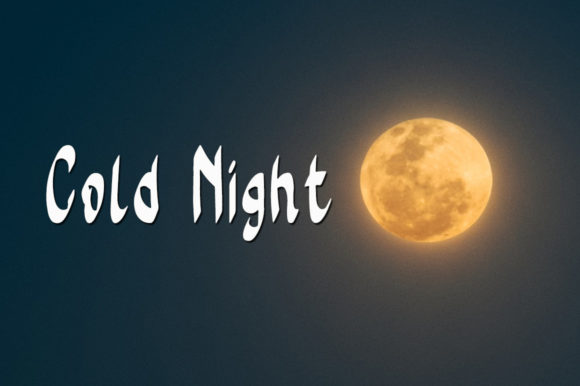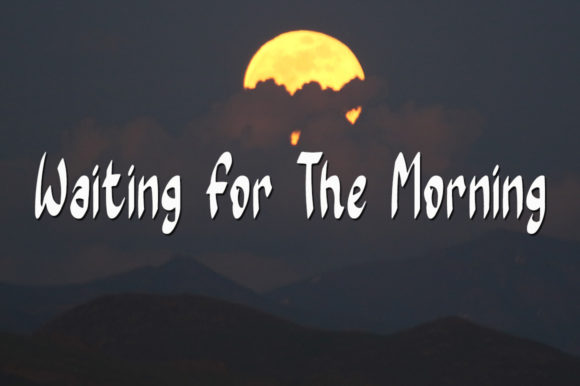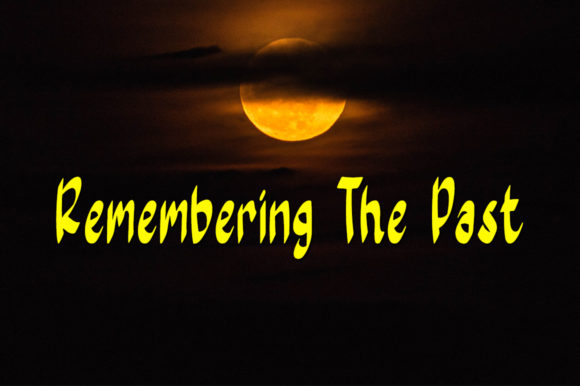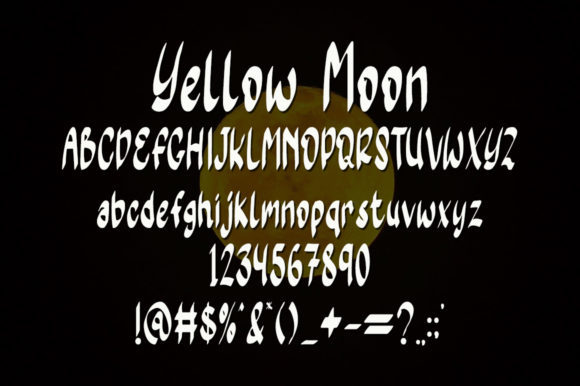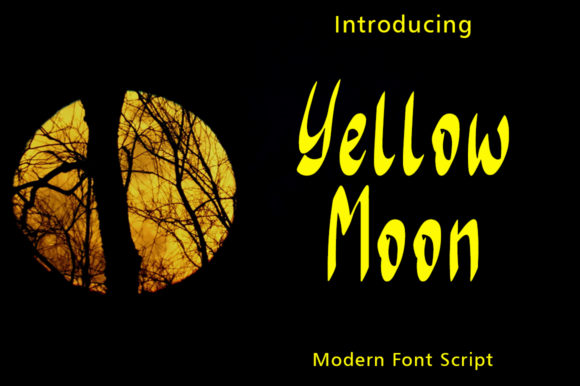
Yellow Moon Font
About Yellow Moon Font
Yellow Moon is a sweet and friendly handwritten font. Its natural and unique style makes it incredibly fitting to a large pool of designs. The only limit is your imagination!